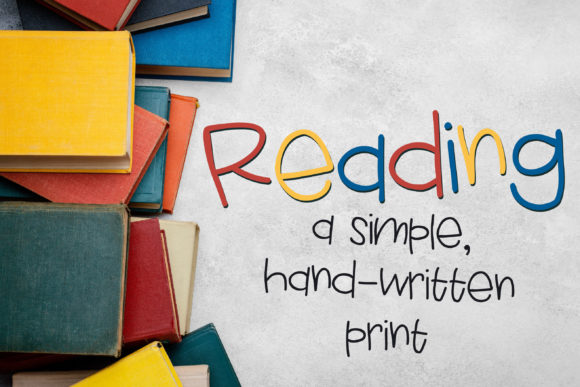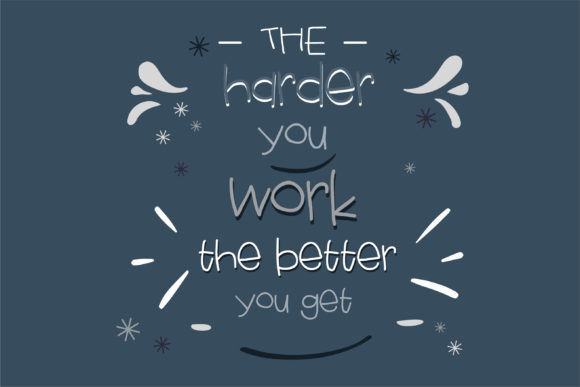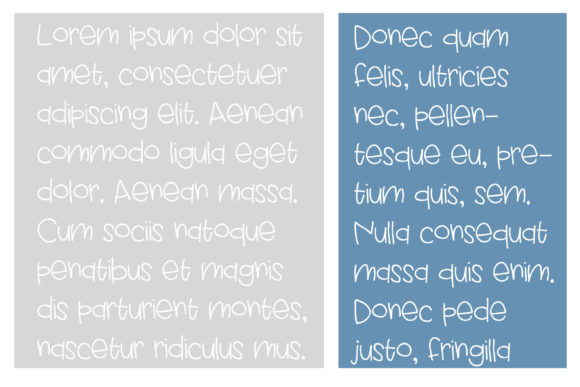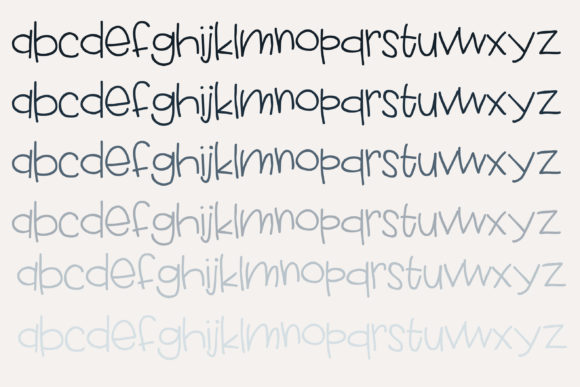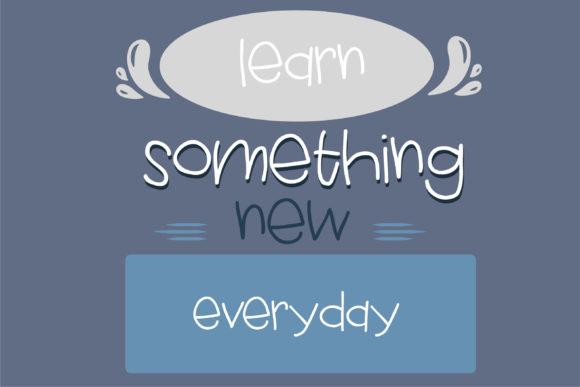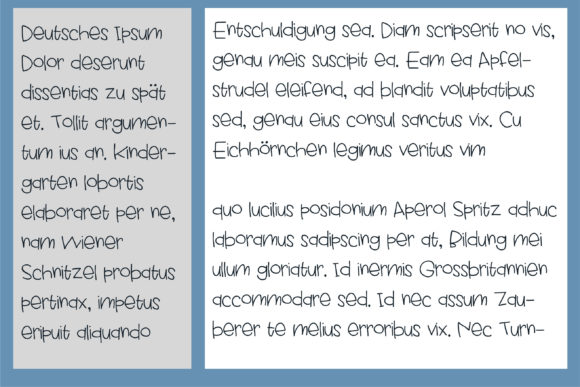
Reading is a delightfully youthful and child-like handwritten font designed to infuse your creative projects with a playful and bouncy charm. The font’s lively characters capture the essence of youthfulness, making it a perfect choice for a variety of design applications. Let Reading bring a vibrant and animated quality to all your creative endeavors, turning your projects into lively expressions of creativity.
The playful and bouncy nature of Reading sets it apart, making it an excellent choice for projects aimed at a younger audience or those that require a whimsical touch. The font’s handwritten style exudes a sense of spontaneity, bringing a lively and dynamic quality to your text. Whether you’re working on children’s books, educational materials, or playful branding, Reading adds a touch of youthful exuberance to your designs.
The characters in Reading are crafted with a playful spirit, evoking a sense of joy and energy. The font’s child-like quality makes it an ideal choice for projects that aim to connect with the imagination and curiosity of younger audiences. From playful posters to interactive learning materials, Reading breathes life into your creative projects with its animated and friendly appearance.
Reading is designed to bring your creative projects to life. Whether you’re working on posters, banners, or any design where a youthful and lively font is needed, Reading steps up to the task. Its ability to convey a sense of playfulness ensures that your designs resonate with a carefree and joyful spirit, making it suitable for a wide range of applications.
In conclusion, Reading is more than just a font; it’s a creative companion that brings a youthful and child-like charm to your projects. Let its playful and bouncy characters infuse energy into your designs, turning them into vibrant expressions of creativity. Whether used for educational materials, children’s content, or any playful endeavor, Reading adds a touch of joy and animation to your typographic palette.